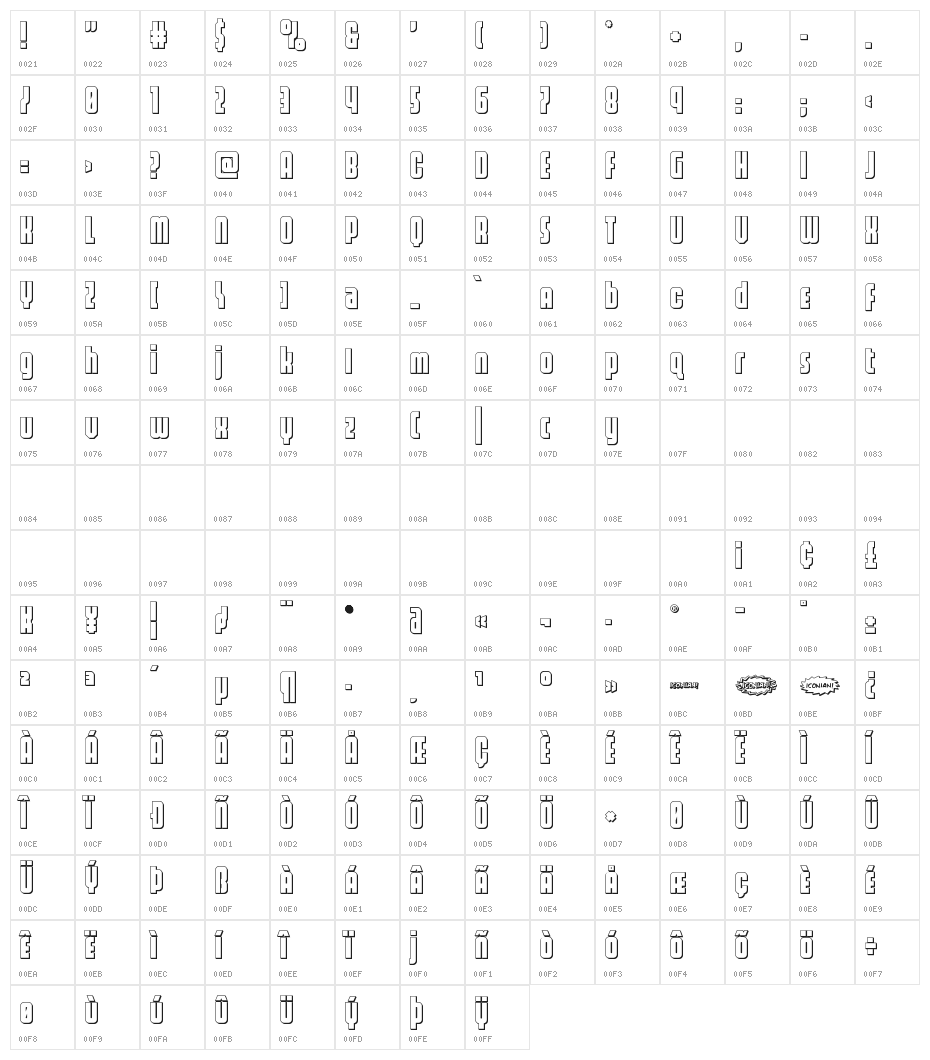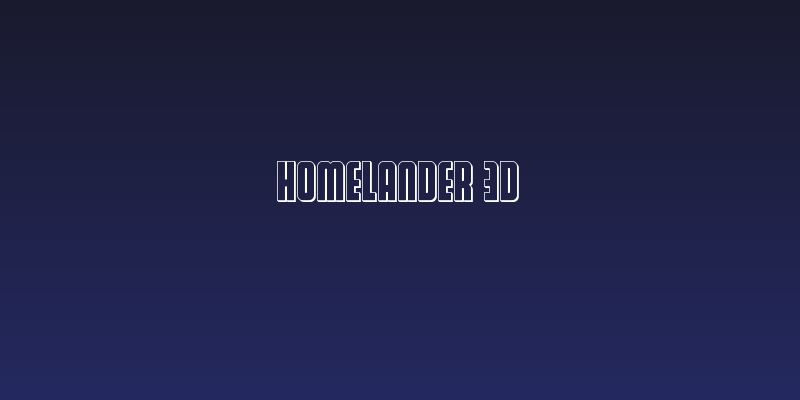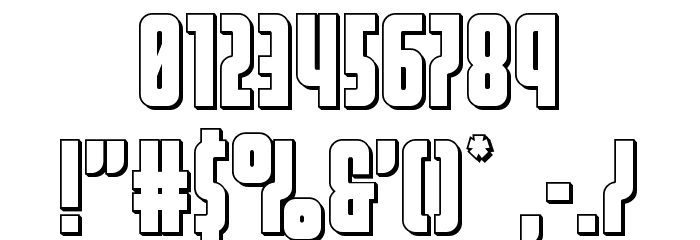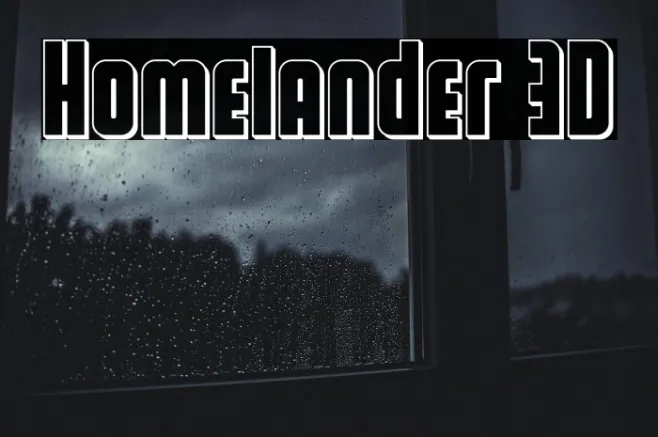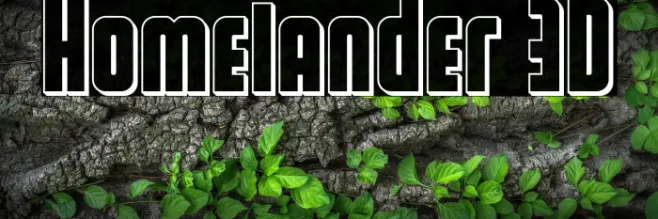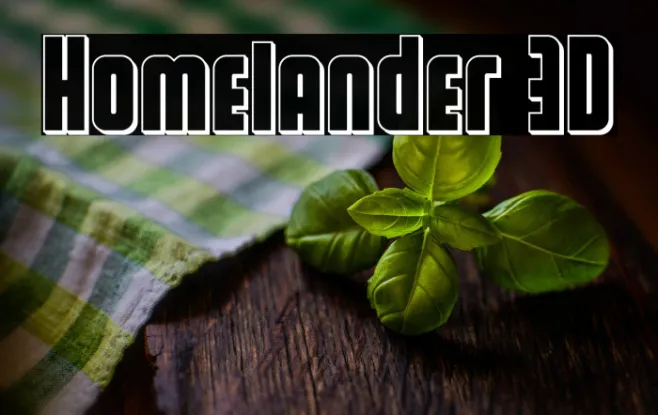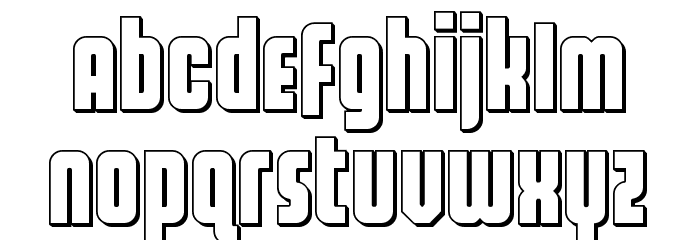
Homelander 3D Font
Homelander 3D Description
This font features a bold, three-dimensional style with a strong presence. The characters are outlined with a thick border, giving them a striking and impactful appearance. The uppercase and lowercase letters maintain a consistent geometric structure, while the numerals and special characters complement the overall design. The font's 3D effect is achieved through a clever use of shading, adding depth and dimension. This style is reminiscent of retro and arcade aesthetics, making it ideal for projects that require a bold and dynamic visual impact.
| Overall Style | Retro, Decorative |
| Proposed Projects | Ideal for video game titles, posters, logos, and any project seeking a bold, retro aesthetic. |